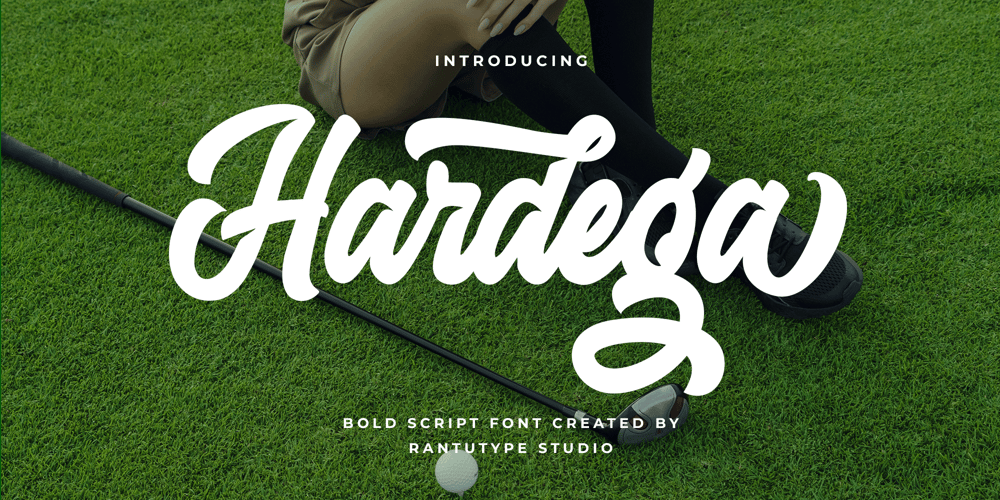
Hardega
Hardega font
Hardega Font Family was designed by Yudi Pratama Chandra and published by RantauType. Hardega contains 1 styles and family package options. Hardega is bold script font with modern authentic style. Hardega bring unique shape in each detail character and versetile. Hardega is a perfect choice for any creative endeavor, lifestyle design such as logos, title, watermark on photography, cover, branding, display and magazine, wedding event, corporate brand, quotes, album cover, business card, business project, company branding and more project with handwritten taste.What you have: Standart Glyphs Numberial and Functional Ligature and alternate Works on PC & Mac Simple installations Accessible in Adobe Illustrator, Adobe Photoshop, Adobe InDesign, even work on Microsoft Word. Fonts include multilingual support for: Afrikaans, Albanian, Basque, Bemba, Bena, Breton, Catalan, Chiga, Cornish, Danish, Dutch, English, Estonian, Filipino, Finnish, French, Galician, German, Icelandic, Indonesian, Irish, Italian, Kinyarwanda, Luxembourgish, North, Norwegian, Portuguese, Romansh, Rombo, Rundi, Scottish, Gaelic, Sena, Shambala, Shona, Soga, Somali, Spanish, Swahili, Swedish, Swiss, German.Thank you for your purchase!Hope you enjoy with our font!